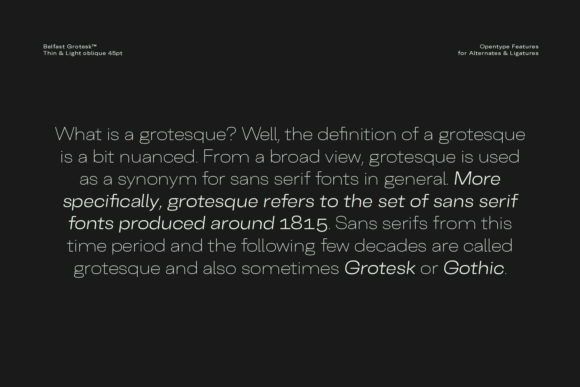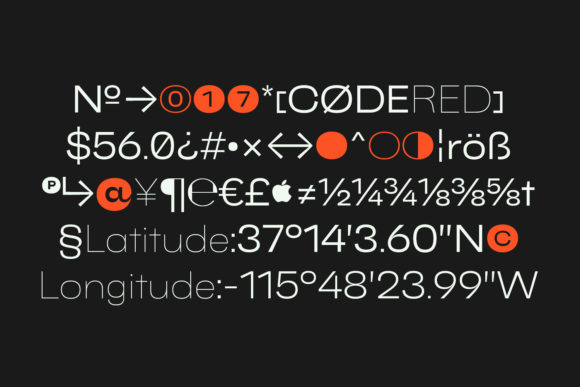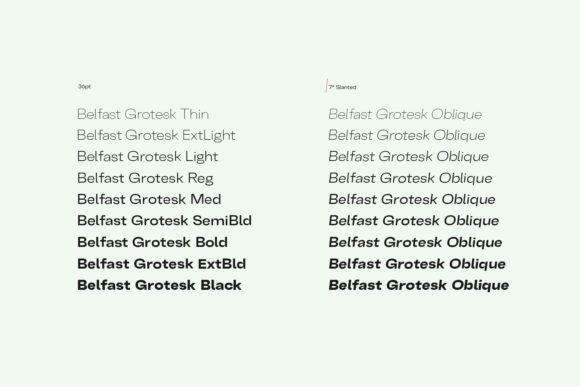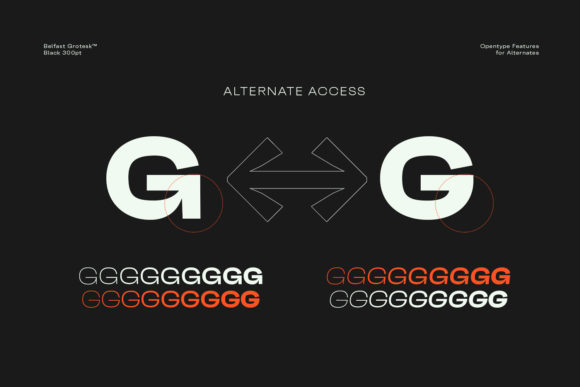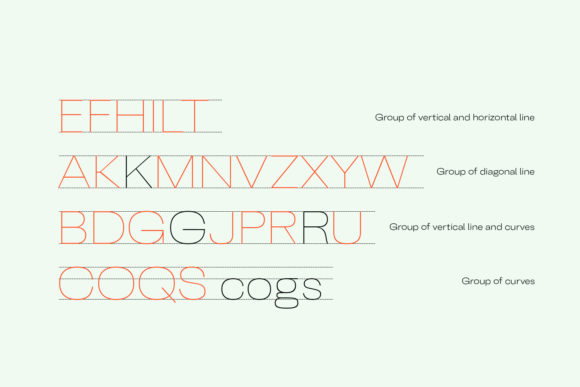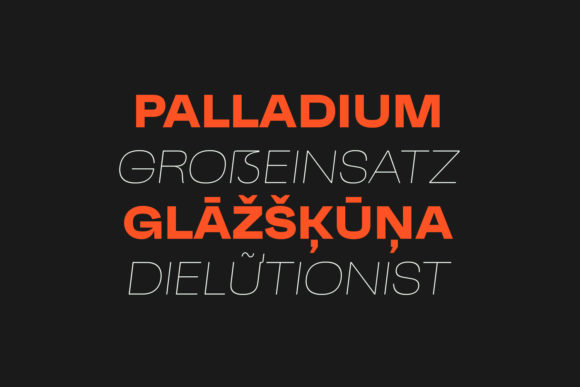
The Perfect Blend of Vintage Charm and Modern Flair
Have you ever stared at a blank canvas, waiting for the perfect font to bring your design to life? That’s exactly what happened to me last week, and I was determined to find the perfect match. After hours of scrolling through font libraries, I stumbled upon the Belfast Grotesk Font – and my design game was instantly elevated.
This vintage-inspired sans serif font is a game-changer for designers. Influenced by the grotesk typefaces of the early 20th century, the Belfast Grotesk Font adds a touch of sophistication and elegance to any project. Its adaptability makes it perfect for a wide range of designs, from sleek logos to bold headlines. Whether you’re a seasoned designer or just starting out, the Belfast Grotesk Font is an invaluable addition to your toolkit.
Belfast Grotesk Font Key Features
- Font Family: Belfast Grotesk
- Font Style: Sans-Serif
- Unique Characteristics: Geometric sans-serif design, inspired by classic grotesks, with a modern twist, offering a wide range of weights and styles.
Belfast Grotesk Font Review
As a designer, I was excited to dive into the world of Belfast Grotesk and see what it has to offer. After spending some time with this font, here are my honest thoughts.
- Belfast Grotesk is a solid, no-nonsense sans-serif font that’s perfect for body text. It’s clear, legible, and easy to read.
- The font’s geometric shapes give it a modern feel, making it suitable for contemporary designs.
- The font’s weights are well-balanced, with a clear hierarchy between light, regular, and bold.
- Belfast Grotesk lacks the personality and flair of more ornate fonts. If you’re looking for something that makes a statement, this might not be the best choice.
- The font’s x-height could be improved for better readability in certain contexts.
- There aren’t many language-specific variations, which might limit its use in multilingual designs.
Belfast Grotesk is a solid, workhorse font that’s perfect for everyday use. While it may not be the most exciting choice, it’s a reliable option for designers who need a clean, readable font. If you’re looking for something with a bit more personality, you might want to consider other options. But for straightforward, no-nonsense designs, Belfast Grotesk is a good choice.
Getting the Most Out of Belfast Grotesk
Use Belfast Grotesk for headings, titles, and short paragraphs where you want to create a strong visual impact.
Pair Belfast Grotesk with other fonts to create a balanced and visually appealing design.
Experiment with different font sizes, colors, and styles to create unique and engaging designs.
Belfast Grotesk is ideal for:
Headings and titles in publications, magazines, and newspapers.
Product packaging and branding.
Web design and digital marketing materials.
Alternatives to Belfast Grotesk Font
Montserrat is a sans-serif typeface designed by Julieta Ulanovsky. It is a geometric sans-serif font with a modern and urban feel, making it ideal for digital interfaces, logos, and editorial content. Montserrat is a more geometric and condensed version of Belfast Grotesk, making it suitable for smaller text sizes and digital displays.
Lato is a sans-serif typeface designed by Łukasz Dziedzic. It is a clean and modern font with a humanistic touch, making it suitable for corporate identities, advertising, and editorial content. Lato is a more rounded and friendly version of Belfast Grotesk, making it ideal for branding and packaging design.
3. Inter Font
Inter is a sans-serif typeface designed by Rasmus Andersson. It is a geometric and highly legible font with a neutral tone, making it suitable for digital interfaces, editorial content, and corporate identities. Inter is a more modern and minimalist version of Belfast Grotesk, making it ideal for digital displays and branding.
Are there any font variants available for the Belfast Grotesk Font?
Yes, the Belfast Grotesk font family includes several variants, including light, regular, medium, bold, and black weights. Each variant offers a distinct character and is optimized for specific design applications. You can choose the variant that best suits your project’s requirements.